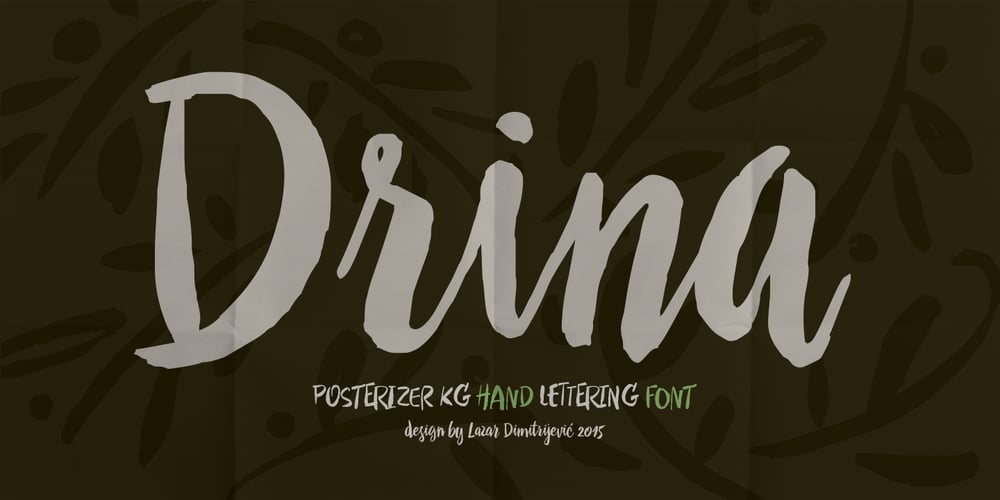
Drina Font Family was designed by Lazar Dimitrijević and published by Posterizer KG. Drina contains 1 styles and family package options. Drina is a script handwritten font with a casual and modern look. Because of the spontaneity there are plenty of Standard and Discretionary Ligatures to avoid frequent repetition of letters. If you find a single repeating glyphs, you can change that by toggling between Stylistic Alternates. There are ligatures created for Cyrillic too, more then 100 symbols, ornaments and artworks with inky texture. Drina is the perfect choice for all natural and authentically beautiful things.